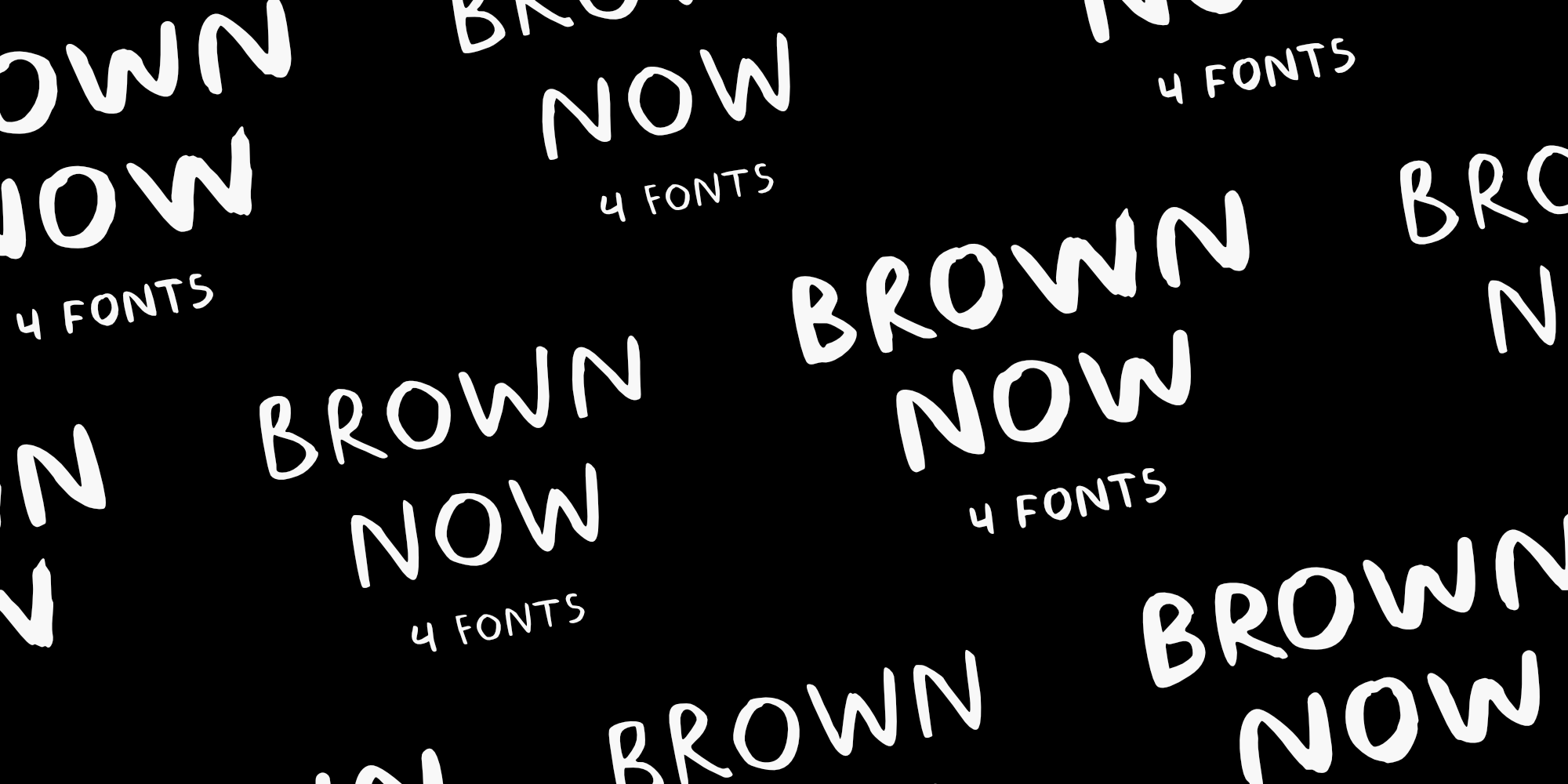
Brown Now Font is perfect for organic coffee shop branding, artisanal chocolate packaging, earthy wellness centers, sustainable fashion labels, natural cosmetics marketing, wood furniture craftsmanship, eco-friendly product branding, rustic bakery signage, warm home decor materials, and authentic farm-to-table restaurant communications. This grounded typeface excels in applications where natural authenticity and earth-connected warmth need to be communicated with honest simplicity and organic appeal that embodies the essence of sustainable living and natural beauty found in earth tones and genuine materials.
What makes Brown Now Font exciting is its remarkable ability to convey the rich warmth and genuine authenticity of natural brown tones through its solidly grounded letterforms that seem to embody the honest beauty of earth, wood, and chocolate in their most natural states. The font captures the essence of organic authenticity with its warm construction and earth-inspired proportions that suggest the comforting reliability of natural materials and the wholesome appeal of products made with genuine care for quality and sustainability. Its carefully crafted character details and earthy personality create an atmosphere of natural trustworthiness that resonates with environmentally conscious consumers and businesses who value authentic sustainability over superficial marketing.
The Brown Now Font family typically includes Light, Regular, Medium, and Bold weights, each maintaining the signature earthy characteristics and natural appeal. Some versions offer textured variants that enhance the organic aesthetic, alternative character sets with nature-inspired symbols, and specialized elements that amplify the sustainable appeal. The family may also include condensed styles for efficient eco-packaging layouts and display cuts optimized for maximum natural impact in organic and sustainable product applications requiring authentic earth-friendly presentation.
Whether you're creating sustainable brand identities, organic product packaging, or natural lifestyle communications, Brown Now Font Free Download delivers the perfect earthy authenticity your eco-conscious projects deserve. Its natural character and organic styling make it an invaluable choice for sustainable businesses, organic brands, and eco-friendly companies working in natural products, sustainable living, and environmental consciousness sectors where authentic earth connection and genuine sustainability are essential for building trust with consumers who prioritize environmental responsibility and natural quality.